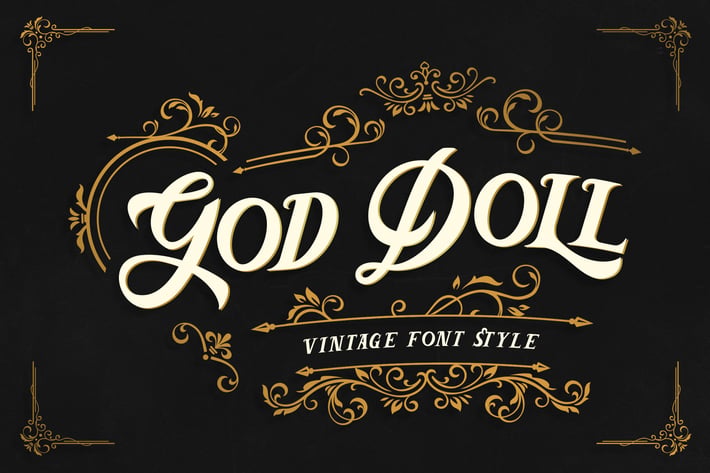
God Doll – Vintage Display Font
God Doll is a vintage display font that was made by hand and inspired by classic posters.
God Doll comes with uppercase, lowercase, numerals, symbols & punctuations, alternate, ligature and multilingual support.
Perfect to use for Logotype, Letterhead, Poster Design, Labels, and many more designs.